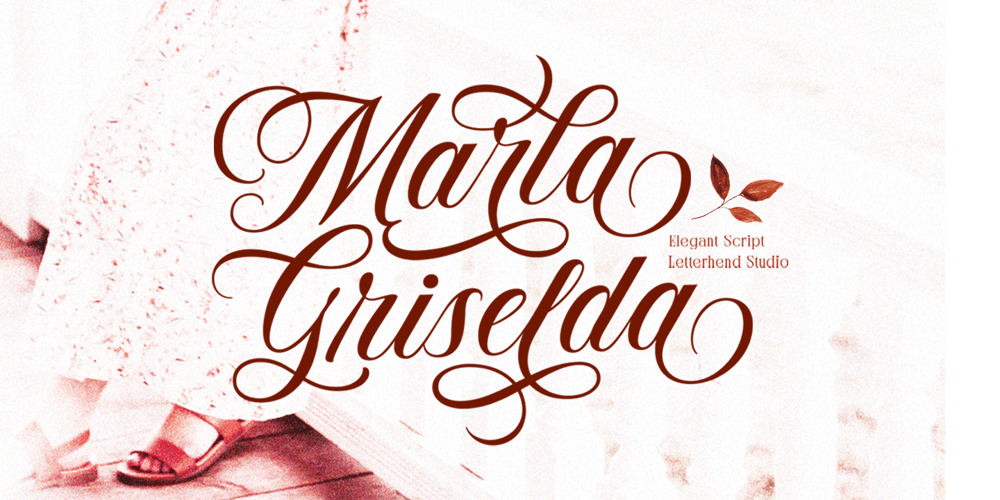
Marla Griselda Font Family was designed by Hendry Juanda and published by Letterhend. Marla Griselda contains 1 styles and family package options. Marla Griselda is a Beautiful and classy script based on manual calligraphy ink on a paper. This fnt has many swashes that allows you to create beautiful lettering instantly. it has many stylistic set alternates that you can choose from. The character of this typeface is bouncy with natural stroke which is make it looks naturally handwritten.This font perfectly made to be applied especially in logo, and the other various formal forms such as invitations, labels, logos, magazines, books, greeting / wedding cards, packaging, fashion, make up, stationery, novels, labels or any type of advertising purpose.Features : uppercase & lowercase numbers and punctuation multilingual ligatures alternates swashes PUA encoded We highly recommend using a program that supports OpenType features and Glyphs panels like many of Adobe apps and Corel Draw, so you can see and access all Glyph variations.